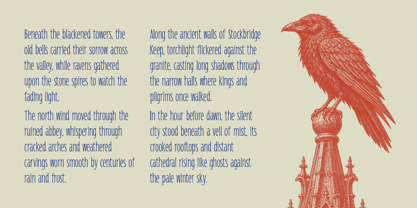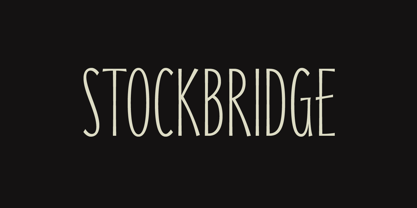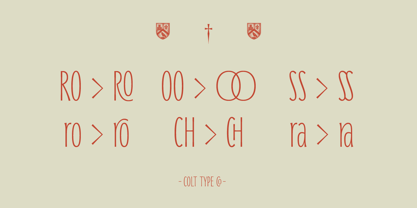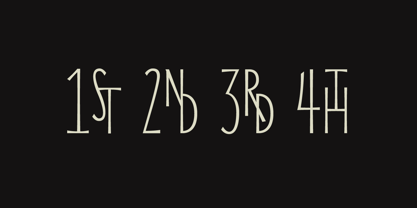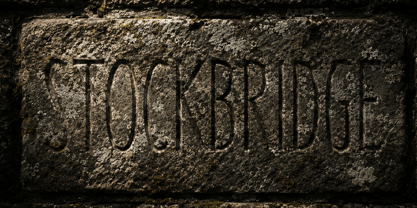
Stockbridge is a tall, sculpted serif typeface that embodies quiet strength and historical significance. Inspired by engraved inscriptions from an 18th-century church in Leicester, it captures the poise and precision of hand-cut stone lettering. With its slender proportions and confident vertical stance, Stockbridge infuses contemporary typography with a sense of heritage and refinement.
This typeface is perfect for logotypes, editorial headings, and branding that seeks to balance grace with authority. An alternate cut expands the design palette, introducing more expressive, stylistic letterforms that reflect the flourishes of the original carvings. OpenType features include standard and discretionary ligatures, alternates, and contextual refinements, enabling a seamless and characterful display. From the understated gravitas of a title page to the bold presence of a wordmark, Stockbridge is a testament to elegance shaped by time, a tall display serif crafted for those who appreciate craftsmanship, heritage, and detail.
Stockbridge Display